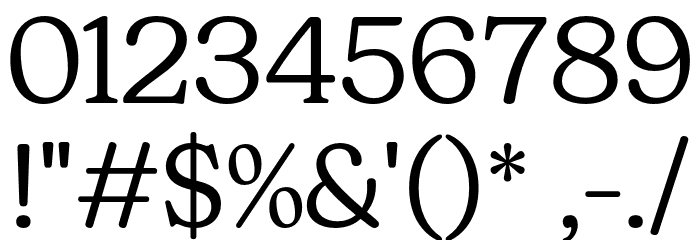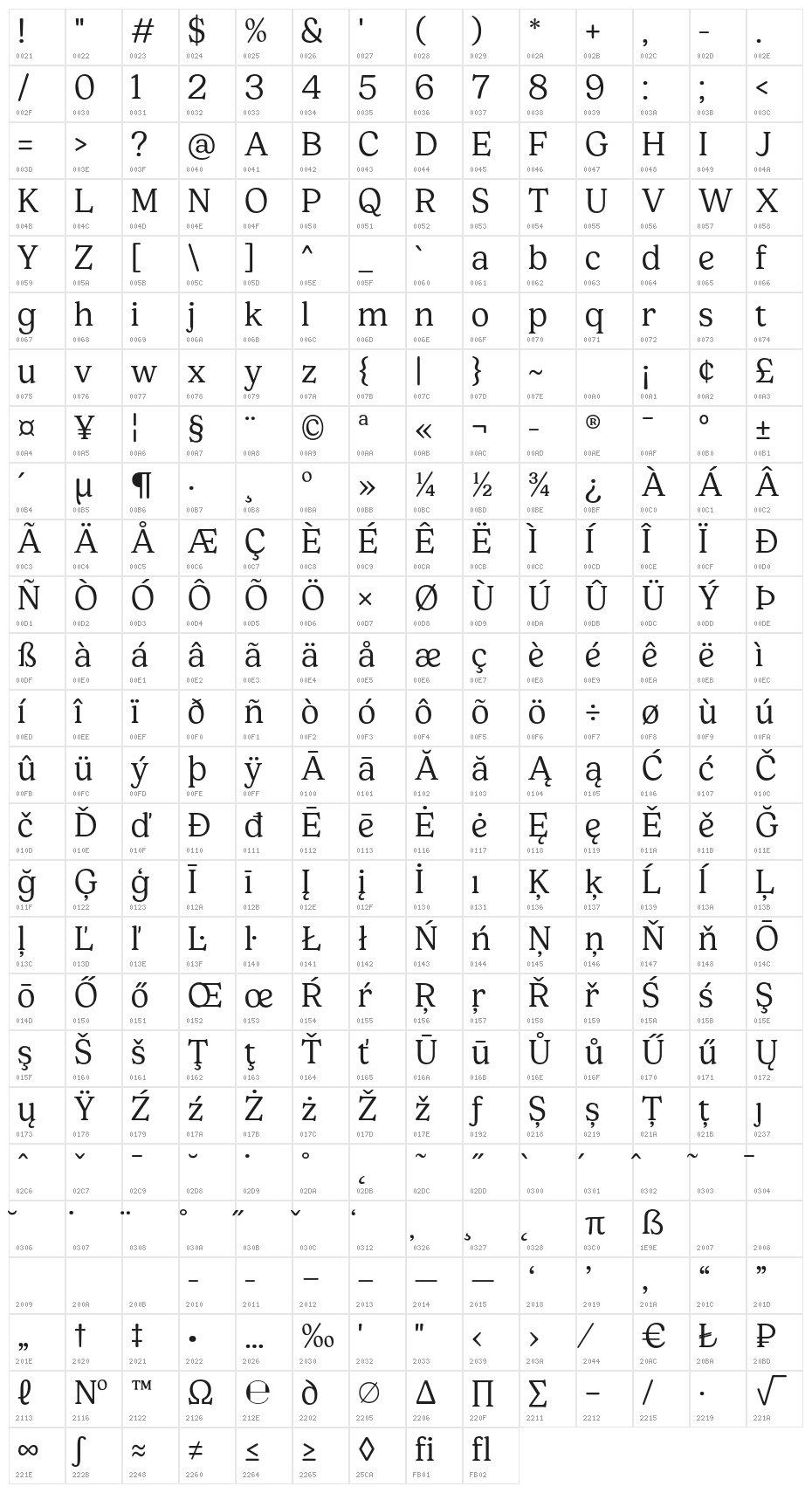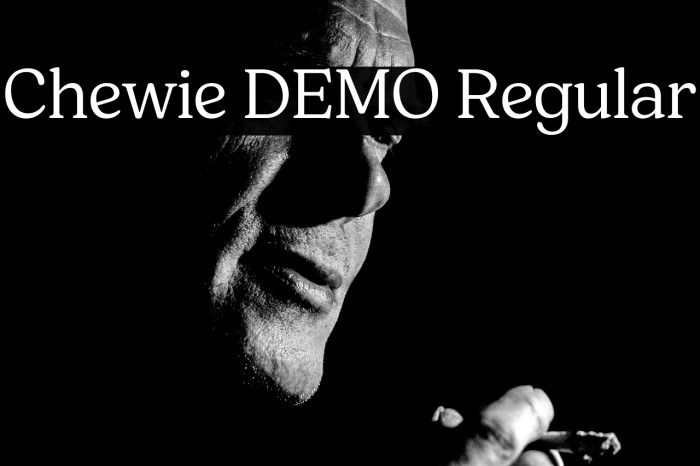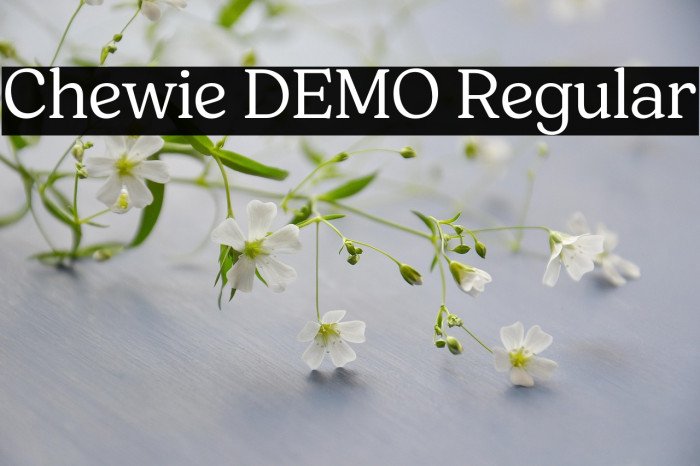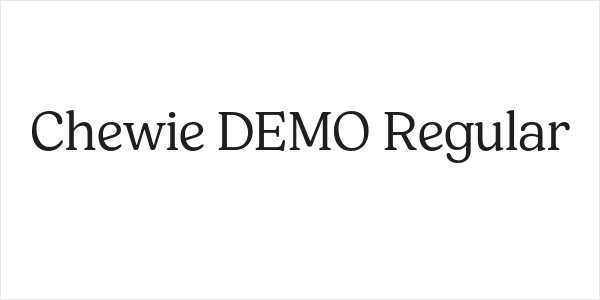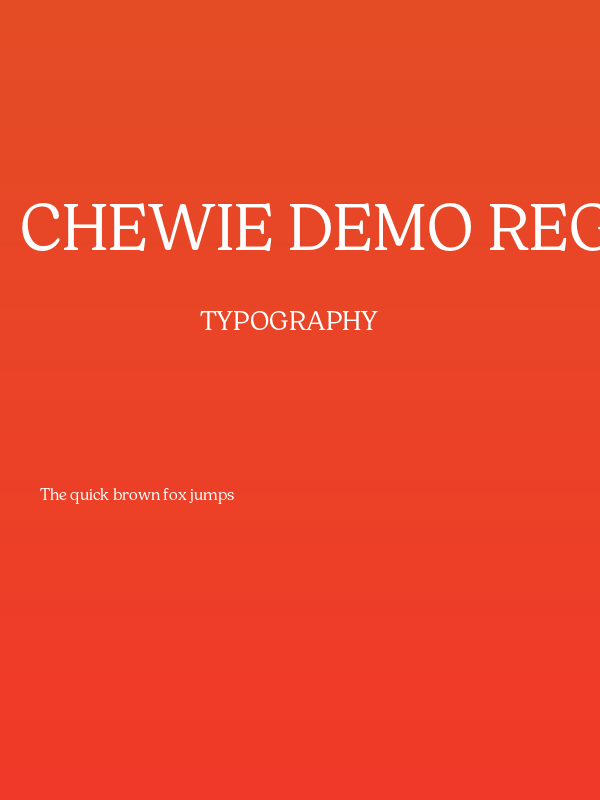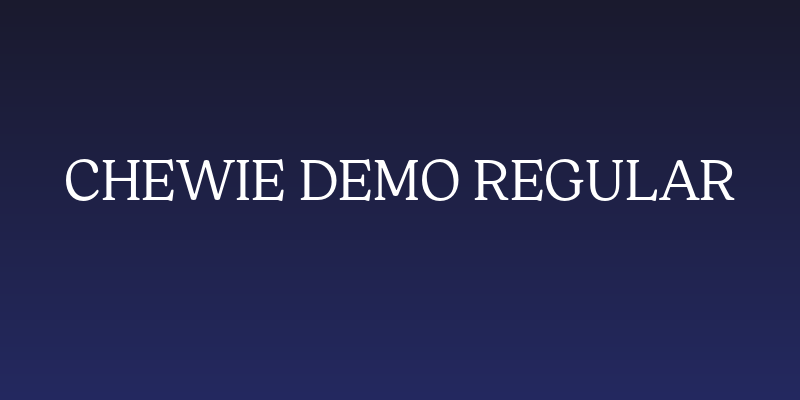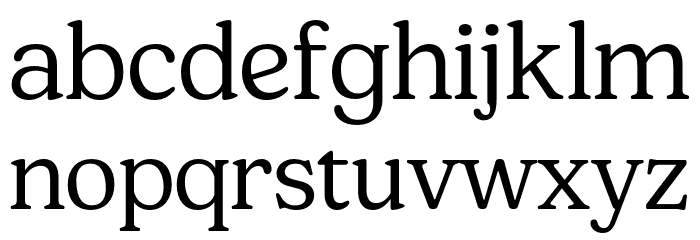
Chewie DEMO Regular Font
Chewie DEMO Regular Description
This font features a classic serif design with a modern twist. The characters are well-defined with a medium contrast in stroke thickness, giving it a sophisticated and elegant appearance. The uppercase letters are bold and commanding, while the lowercase letters maintain a harmonious balance with slightly rounded edges. The numerals are clear and distinct, making them easily readable. Special characters are included, providing versatility for various design needs. The overall style is timeless, making it suitable for both traditional and contemporary projects.